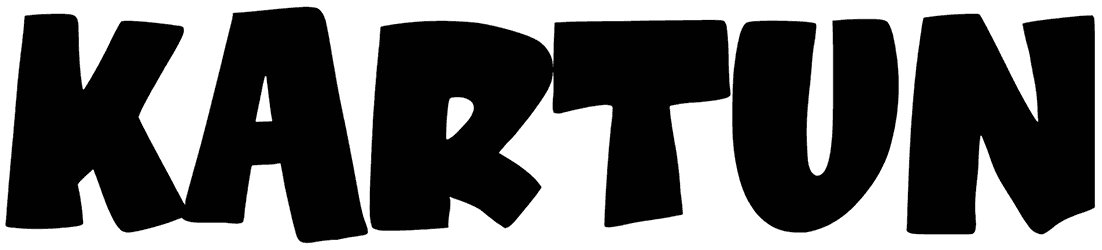
Rainclouds Font
Rainclouds, belonging to the cartoon font family, is a fancy and classy font that effectively gives off a showy and cartoonish vibe. It doesn’t support number letters. You can use it in content made for kids such as books and posters. We also have provided some other kids-related fonts. You can find them on our website.
Designed by: David Kerkhoff